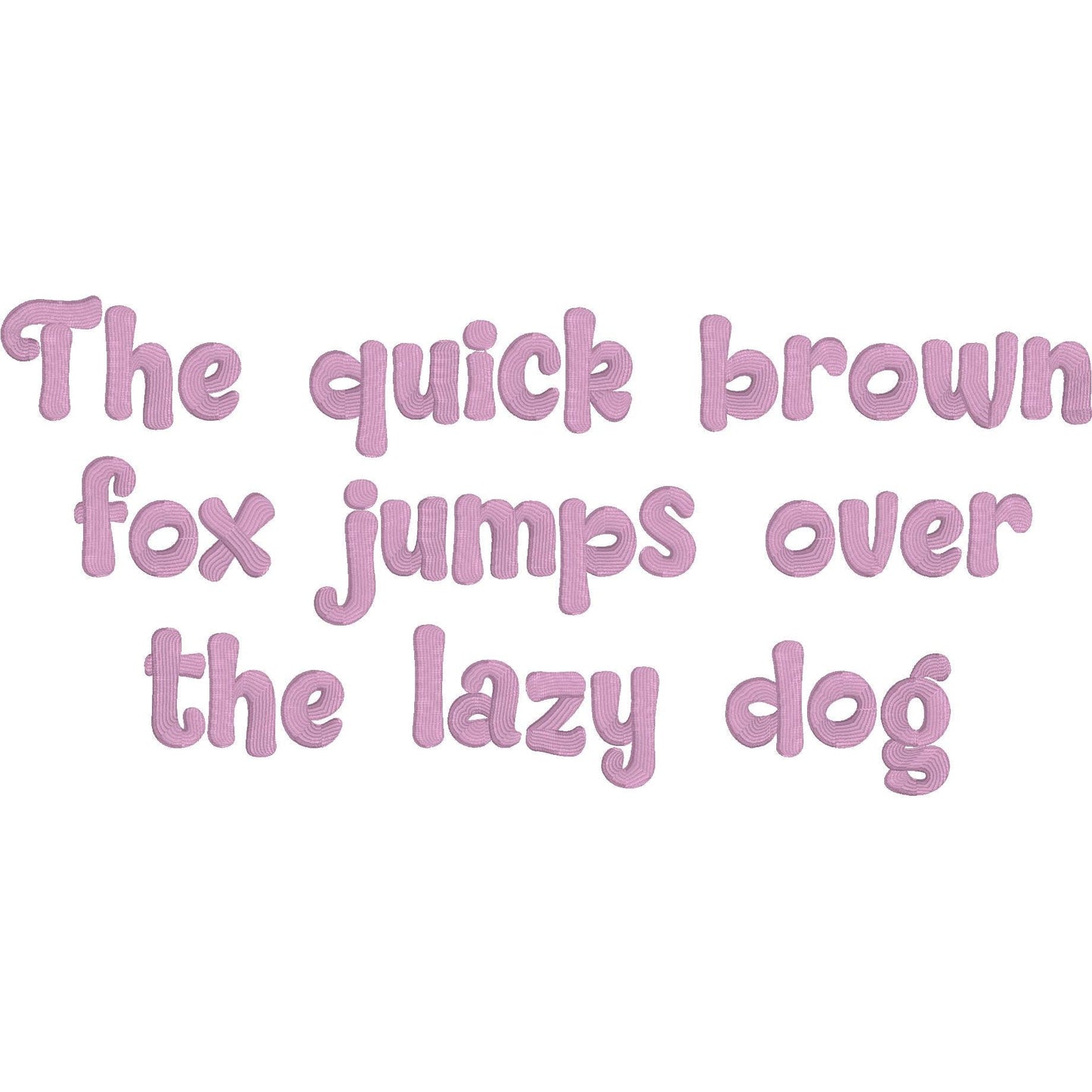
Angel 3D Puff Bold Elegant Script Embroidery Font | BX Included
Angel 3D Puff is a Bold Elegant machine embroidery font featuring beautiful satin stitch lettering. Perfect for shirts, towels, hats, baby gifts, monograms, and small business embroidery projects.